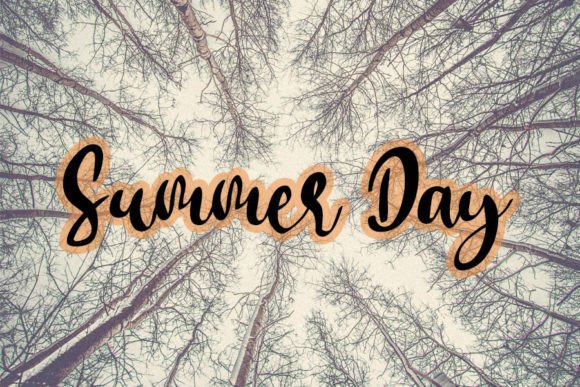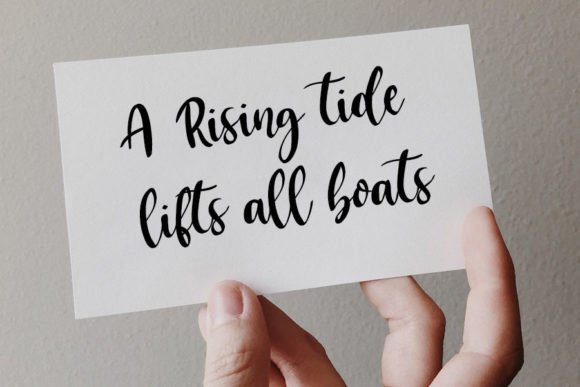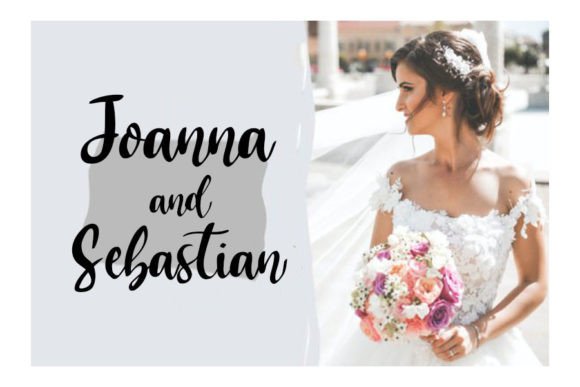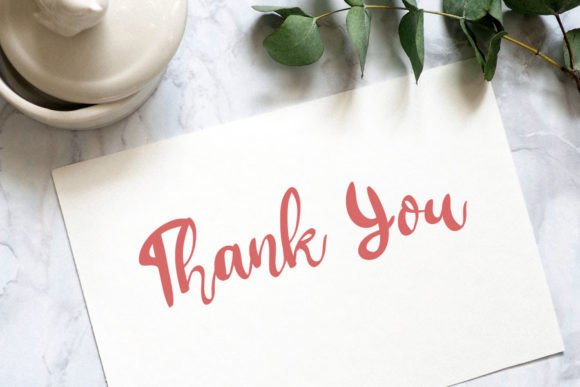
Wonderful Font
A Playful Handwritten Font for Creative Projects
Wonderful Font is a delightful and friendly handwritten font. It adds a touch of fun and charm to any design project. Whether you’re creating posters, greeting cards, logos, or social media graphics, this font helps your designs stand out and make a lasting impression.
Perfect for Posters and Promotions
When it comes to posters, Wonderful Font excels with its eye-catching and expressive characters. Its fun and friendly style is perfect for attention-grabbing headlines or promotional materials. Whether you’re advertising an event, showcasing a product, or adding visual interest, Wonderful will make your poster stand out.
Great for Greeting Cards
Wonderful Font also enhances greeting cards with its playful nature. The handwritten look adds a personal touch to your messages. Whether you’re creating birthday cards, thank-you notes, or other special cards, Wonderful helps convey your warmest wishes in a unique and memorable way.
Ideal for Logos and Branding
Logos designed with Wonderful Font have a distinct and memorable look. The hand-drawn style gives your business or brand a friendly, approachable image. Whether you’re designing a logo for a creative studio, children’s brand, or lifestyle blog, Wonderful adds personality to your brand.
Perfect for Social Media Graphics
In social media graphics, Wonderful Font brings a sense of whimsy and playfulness. Its casual style is perfect for Instagram posts, Facebook covers, or Pinterest graphics. Whether you’re sharing quotes, announcing promotions, or adding visual flair, Wonderful helps create engaging and shareable designs.
Add Charm and Fun to Your Designs
Wonderful Font is a fun and friendly handwritten font. Its playful nature adds a unique charm to any design project. From posters and greeting cards to logos and social media graphics, Wonderful is the perfect choice for creating memorable designs. Let Wonderful’s charm elevate your next creative project.